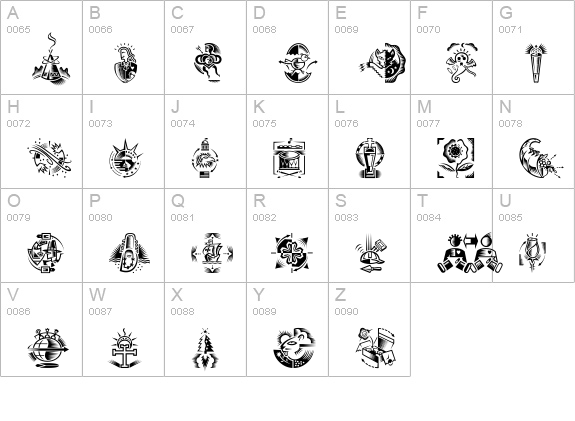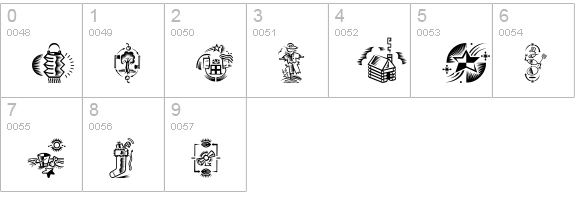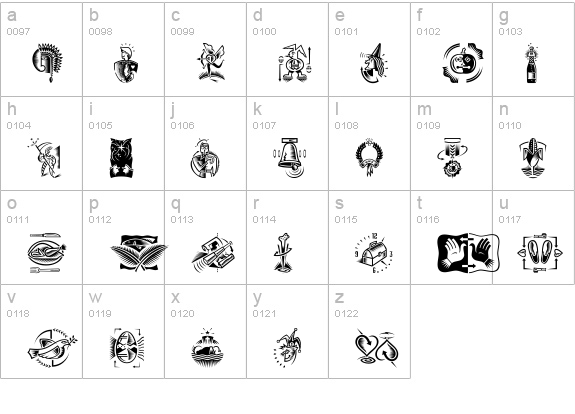
DF Celebrations Font Details
DF Celebrations font is a delightful and festive typeface that exudes a sense of joy and excitement. With its playful curves and elegant design, this font is perfect for adding a touch of celebration to any project. Whether you are creating invitations, greeting cards, posters, or any other design that calls for a fun and cheerful aesthetic, DF Celebrations font is sure to make your text stand out. The best part is that DF Celebrations font is completely free to download at FontsMarket.com. This means that you can easily access this charming font to enhance your designs without breaking the bank. So, why wait? Download DF Celebrations font today and let your creativity soar with its whimsical and eye-catching style.